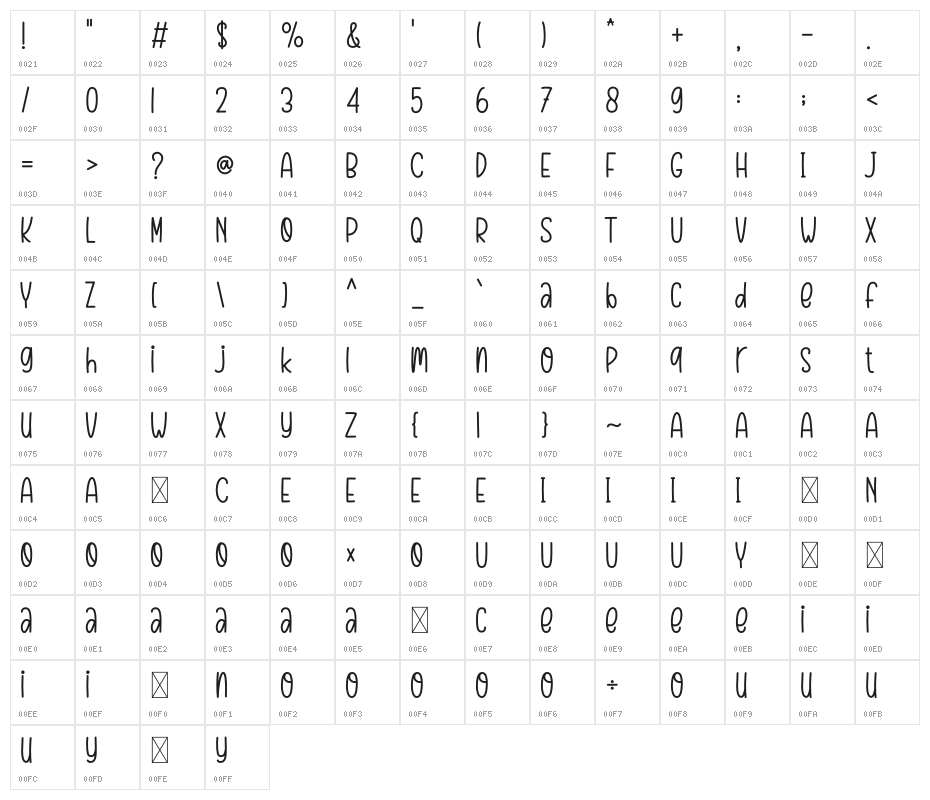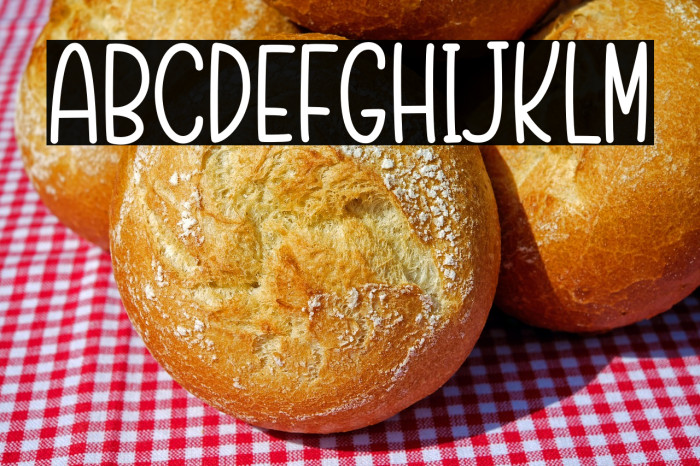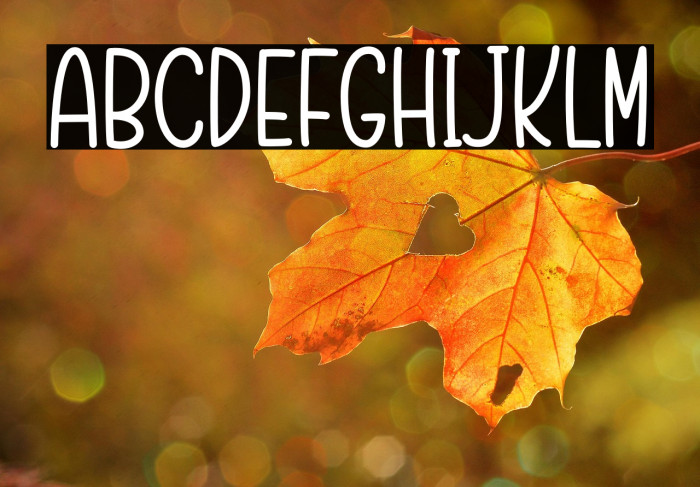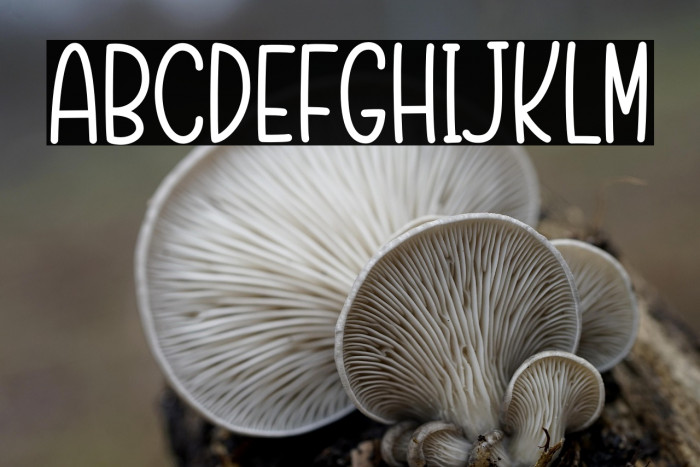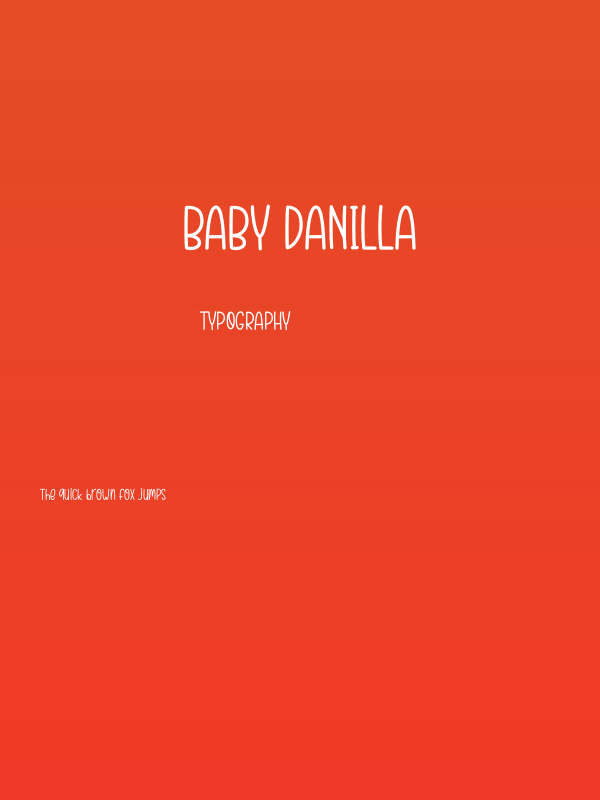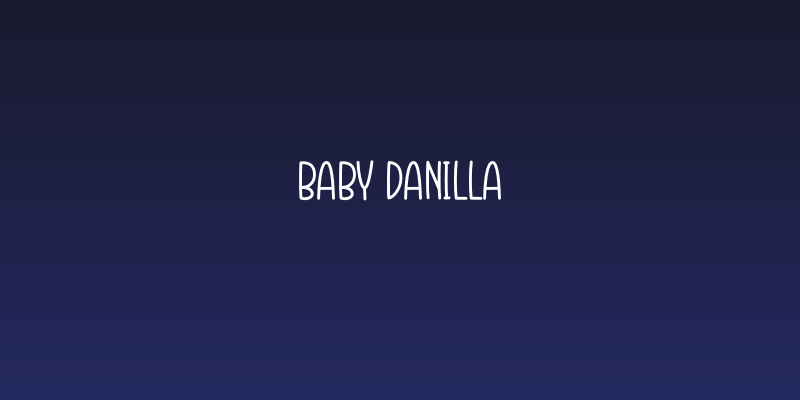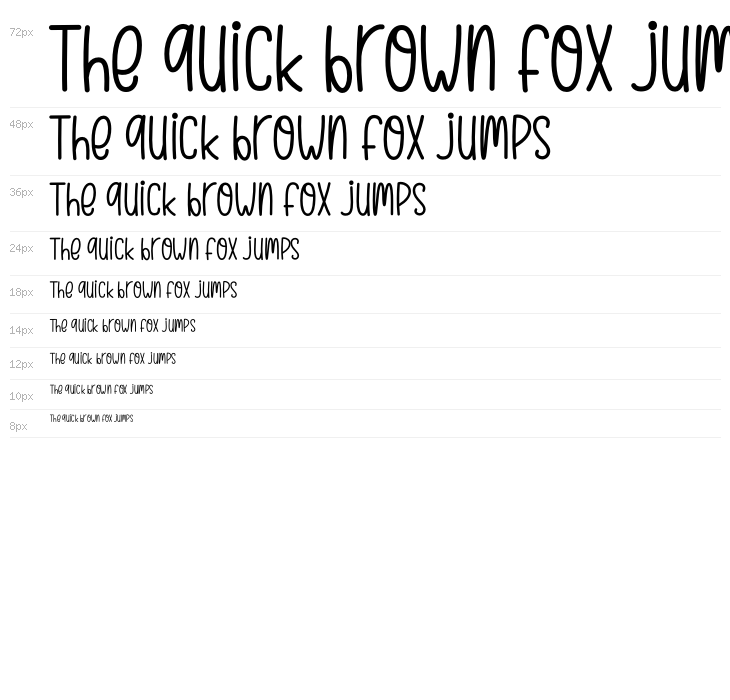
Baby Danilla Font
Baby Danilla Description
A playful, handwritten font with rounded edges and a casual style.
| Use Case | Headlines, Informal text, Children's materials |
| Proposed Projects | Children's books, greeting cards, playful branding. |